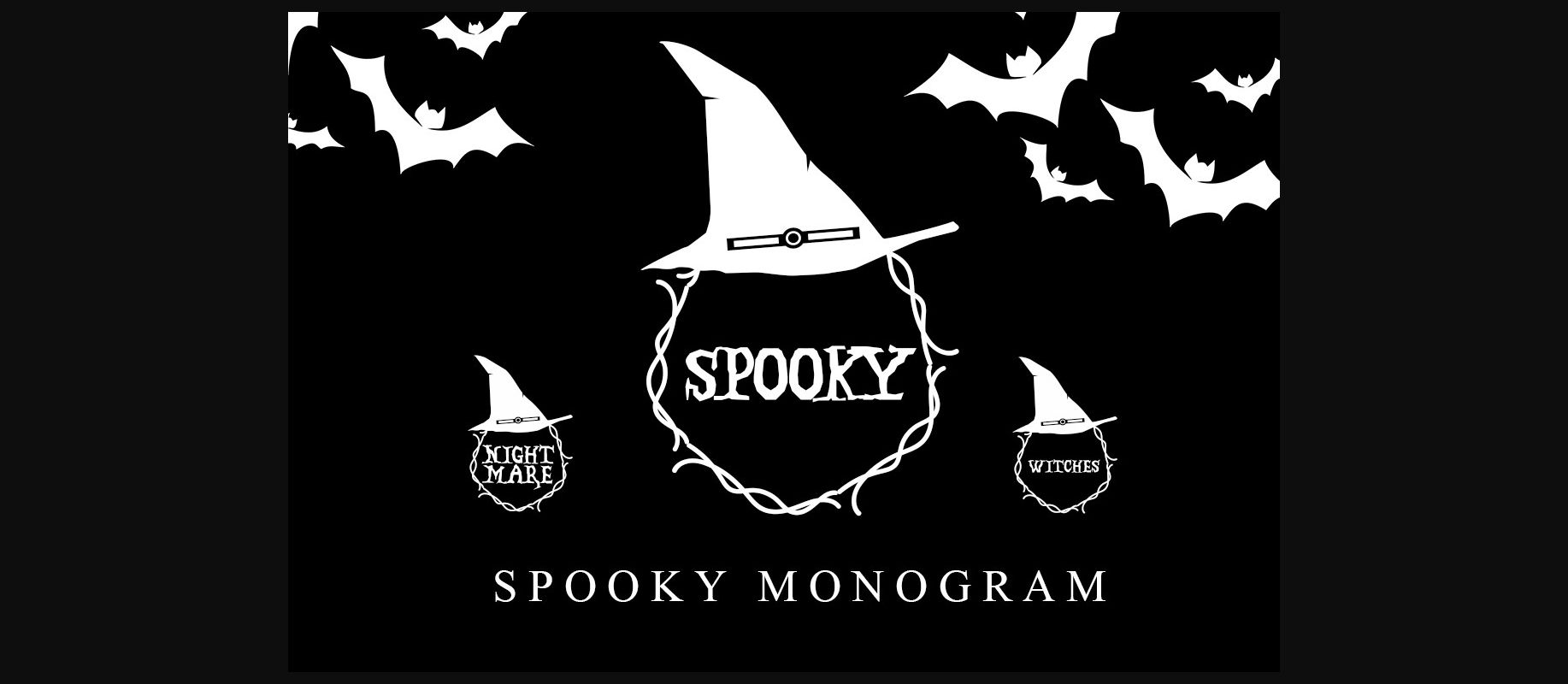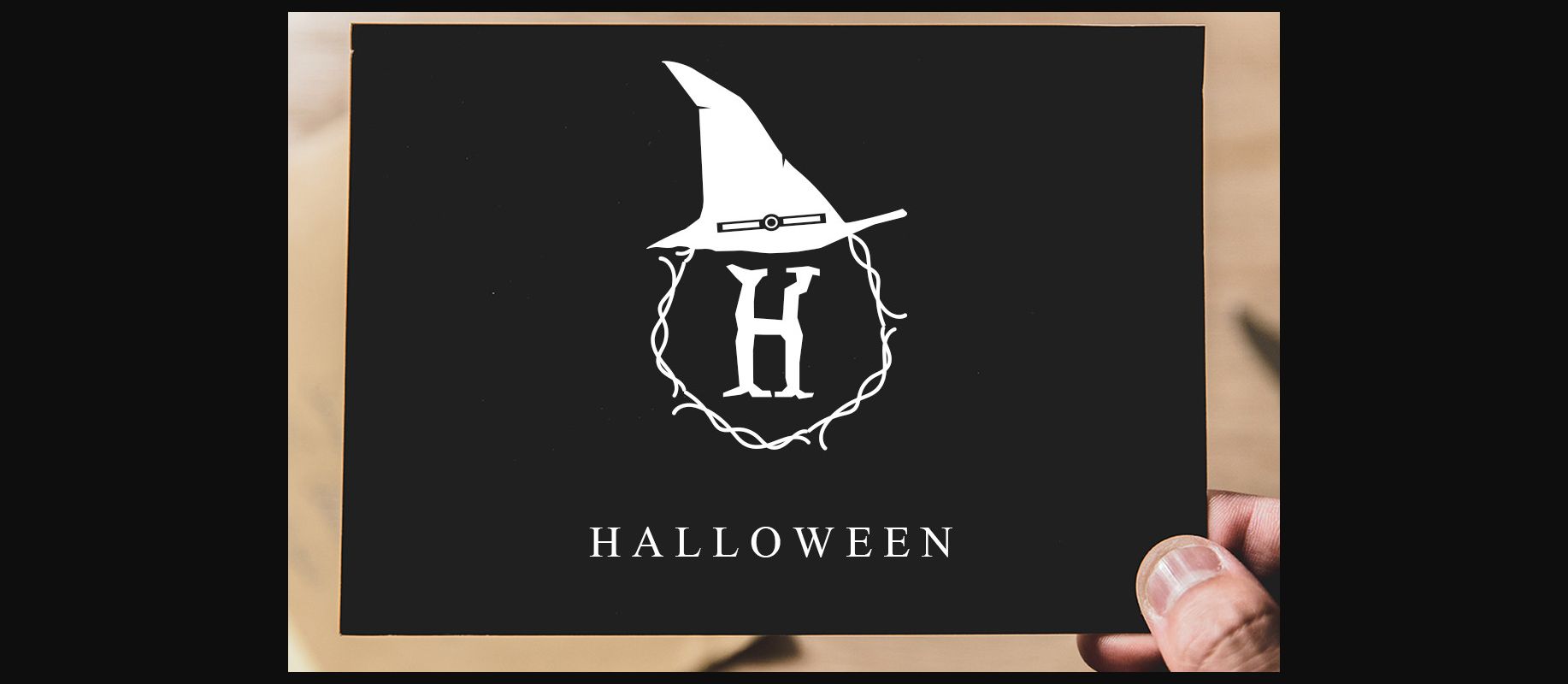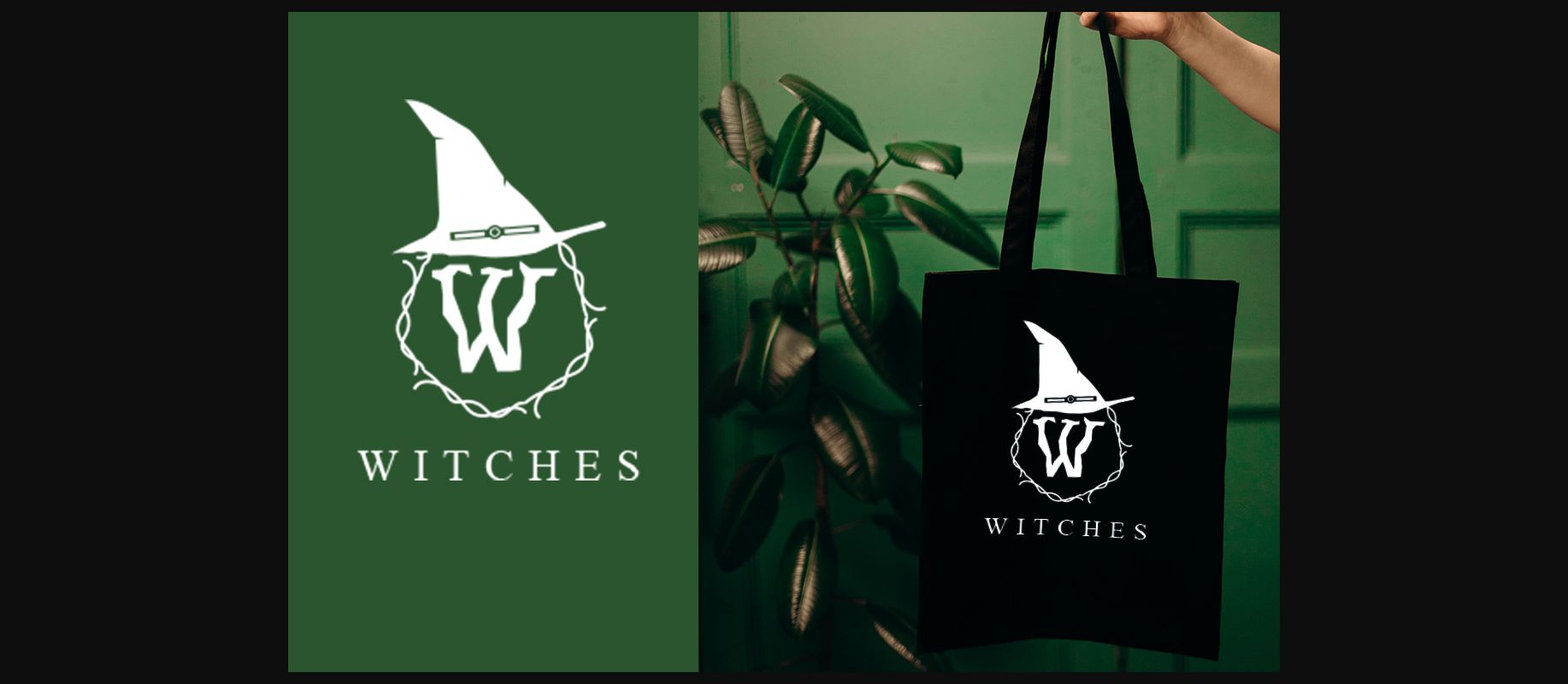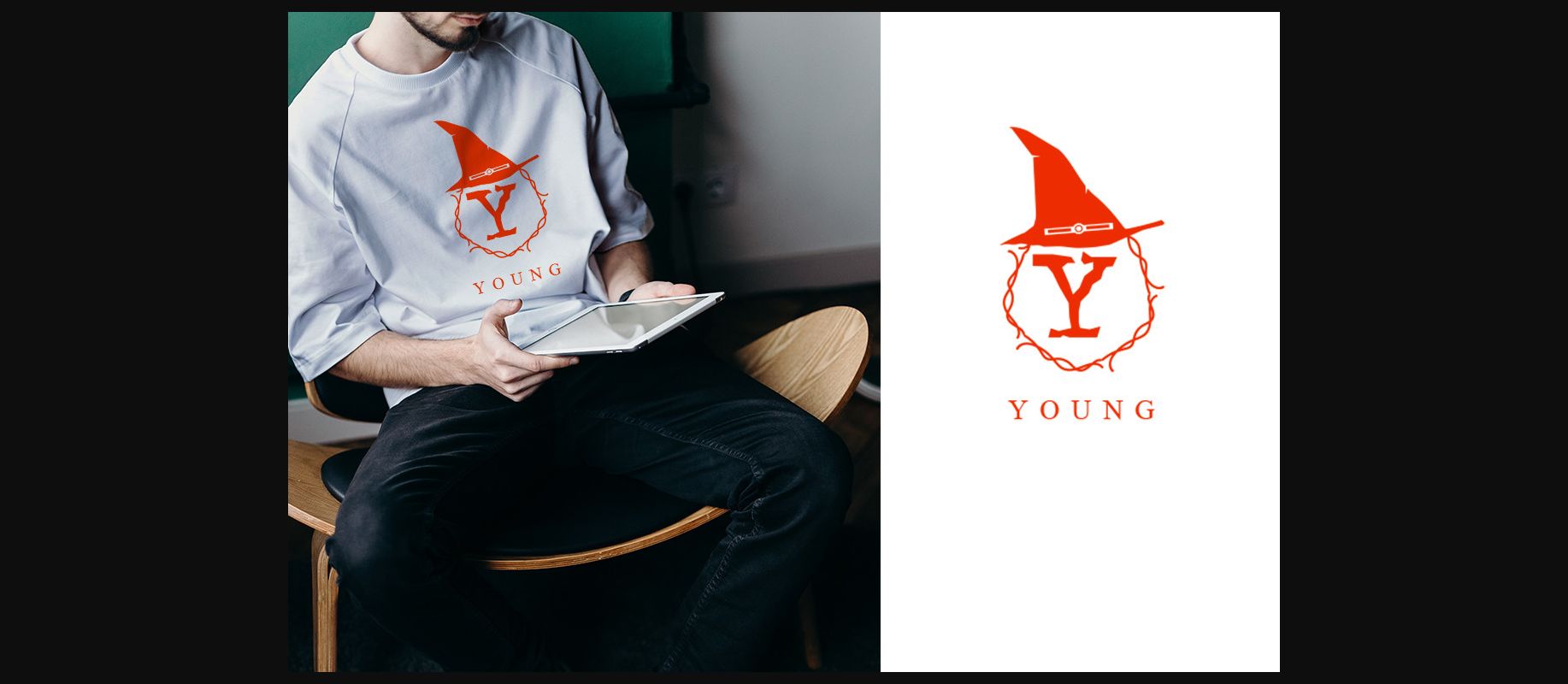
HomeDecorative FontsSpooky Monogram Font Decorative Fonts Spooky Monogram Font FacebookXPinterestWhatsApp 1 of 6 ... Spooky Monogram Font Poster 2... Spooky Monogram Font Poster 3... Spooky Monogram Font Poster 4... Spooky Monogram Font Poster 5... Spooky Monogram Font Poster 6... About Spooky Monogram Font Spooky Monogram is a fun and uniquely designed decorative font. Add it to your Halloween crafts, horror movie posters, t-shirts and anything else that requires a spectacular look. DOWNLOAD NOW People also explored Malactlicos Font North City Font Drop the Game Font Olivier Font Lynsic Cisnyl Font Fesamore Script Font A Christmas Gathering Font Blacklisted Font Rembulan Font 335 0 TagsSpooky Monogram Font Previous articleMelisa Monogram Font FontNext articleMonogram Snow Melting Font LEAVE A REPLY Cancel reply Comment: Please enter your comment! Name:* Please enter your name here Email:* You have entered an incorrect email address! Please enter your email address here Website: Save my name, email, and website in this browser for the next time I comment. Personal Use Free William Personal Use Free Read more about this font Love Heart Personal Use Free Read more about this font Baveuse Personal Use Free Read more about this font Omira Personal Use Free Read more about this font BLOG Free vs Paid Fonts: Why Investing in Premium Fonts Is Worth It Free vs Paid Fonts: Why Premium Fonts Are Worth It in 2025 The debate of free vs paid fonts continues in the design world. While... Exploring Font Trends Top 10 Handwritten Fonts That Elevate Your Designs 5 Fonts That Will Dominate Design Trends in 2026